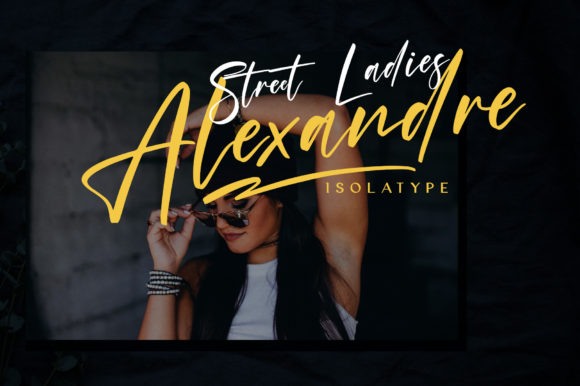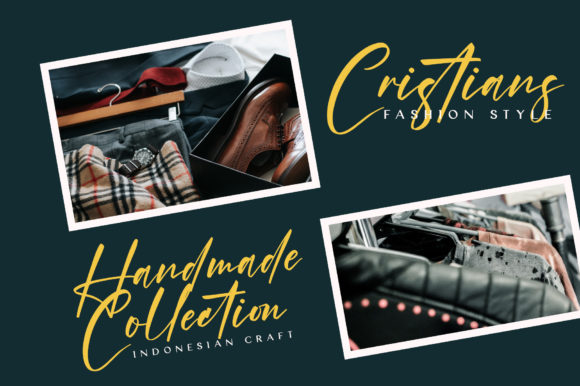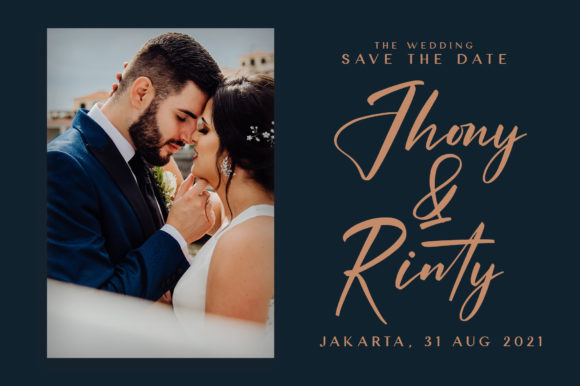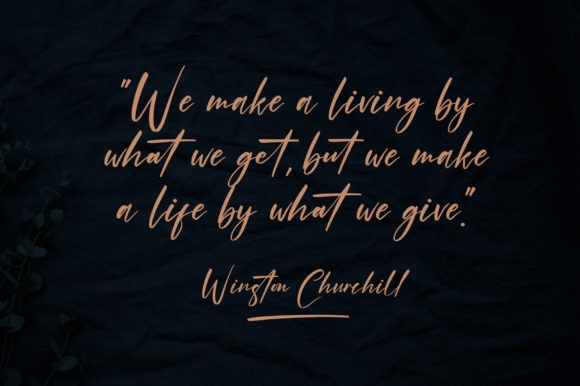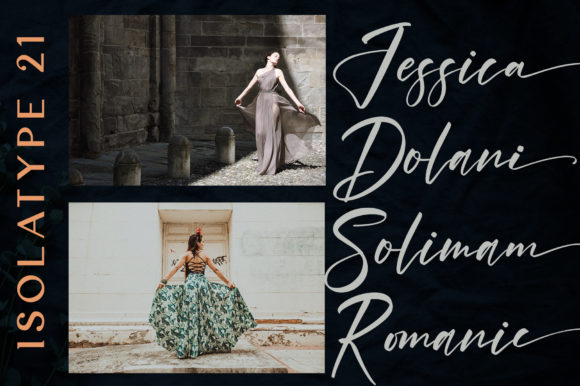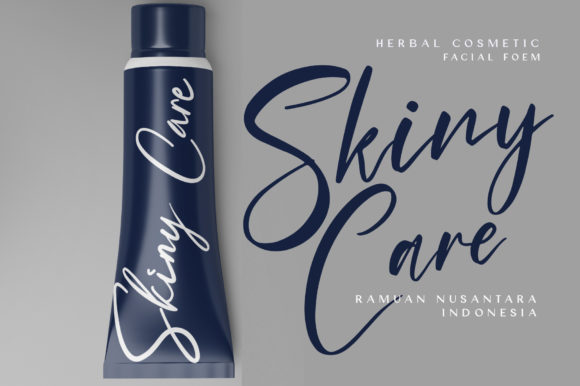
Introduction to Hirarki Signature Font
Have you ever found yourself staring at a blank canvas, desperate to create something beautiful but struggling to find the right words? This is where the perfect font can make all the difference. For designers, the right font can elevate a project from bland to grand, making it a crucial element in creating a stunning design.
One such font that has been making waves in the design community is the Hirarki Signature Font. This elegant script font boasts a thin lettered and graceful style that is sure to captivate anyone who lays eyes on it. With its ravishing design, it’s no wonder that designers are falling head over heels in love with this font.
But what makes Hirarki Signature Font truly special is its high quality design and the fact that it’s PUA encoded, allowing for easy access to all of its glyphs and swashes. This means that designers can create gorgeous designs with ease, using it as a valuable design resource to elevate their creative projects.
Key Features of Hirarki Signature Font
- Unique and elegant design, ideal for creative projects and personal branding
- High-quality font with transparent background, perfect for overlaying on images or videos
- Supports various languages and characters, making it a versatile design resource
- Designed to be highly legible and easy to read, even at small font sizes
- Perfect for use in digital designs, such as social media graphics, website headers, and more
Honest Review: Hirarki Signature Font
I recently had the opportunity to work with the Hirarki Signature Font, and I must say it’s been a great addition to my design resource library. The font is perfect for any creative project that requires a touch of elegance and sophistication.
What works well: ✨ The Hirarki Signature Font is incredibly versatile and can be used for a variety of purposes, from headings to body text. Its high quality design ensures that it looks great on both light and dark backgrounds, and it’s even suitable for use on a transparent background.
Limitations: ⚠️ One thing to keep in mind is that the Hirarki Signature Font is a bit on the heavier side, which may not be suitable for all designs. Additionally, the font’s italic style is not as polished as its regular counterpart.
Overall, I’m really impressed with the Hirarki Signature Font. It’s a valuable addition to any designer’s toolkit, and I would definitely recommend it to anyone looking for a high-quality font for their next creative project.
- High quality design
- Transparent background support
- Editable and customizable
How to Use Hirarki Signature Font
The Hirarki Signature Font is a high-quality design resource ideal for creative projects that require a touch of sophistication. With its elegant and modern design, it’s perfect for creating logos, business cards, and other visual elements that demand attention.
The Hirarki Signature Font is perfect for creating logos, business cards, and other visual elements that require a touch of sophistication. It’s also ideal for use in presentations, reports, and other documents where a professional look is required.
Tips for Getting the Most Out of Hirarki Signature Font
To get the most out of the Hirarki Signature Font, use it in conjunction with other high-quality design resources. Experiment with different font sizes, colors, and alignments to create a visually appealing design. Don’t be afraid to try new things and push the boundaries of what’s possible with this versatile font.
Can I use the Hirarki Signature Font for logos and branding materials?
Yes, the Hirarki Signature Font is suitable for logos, branding materials, and other creative projects that require a high-quality, unique design element. Its versatility and stylish appearance make it an excellent choice for various design applications.